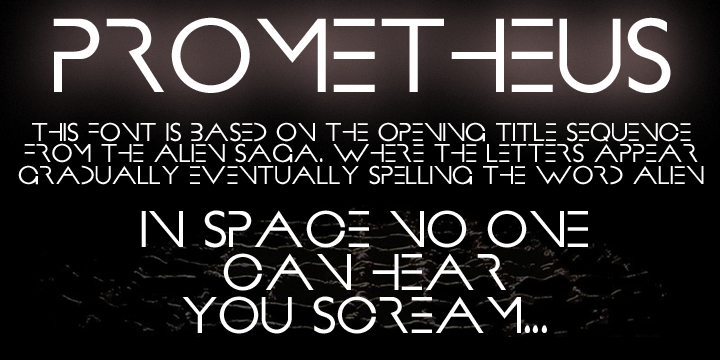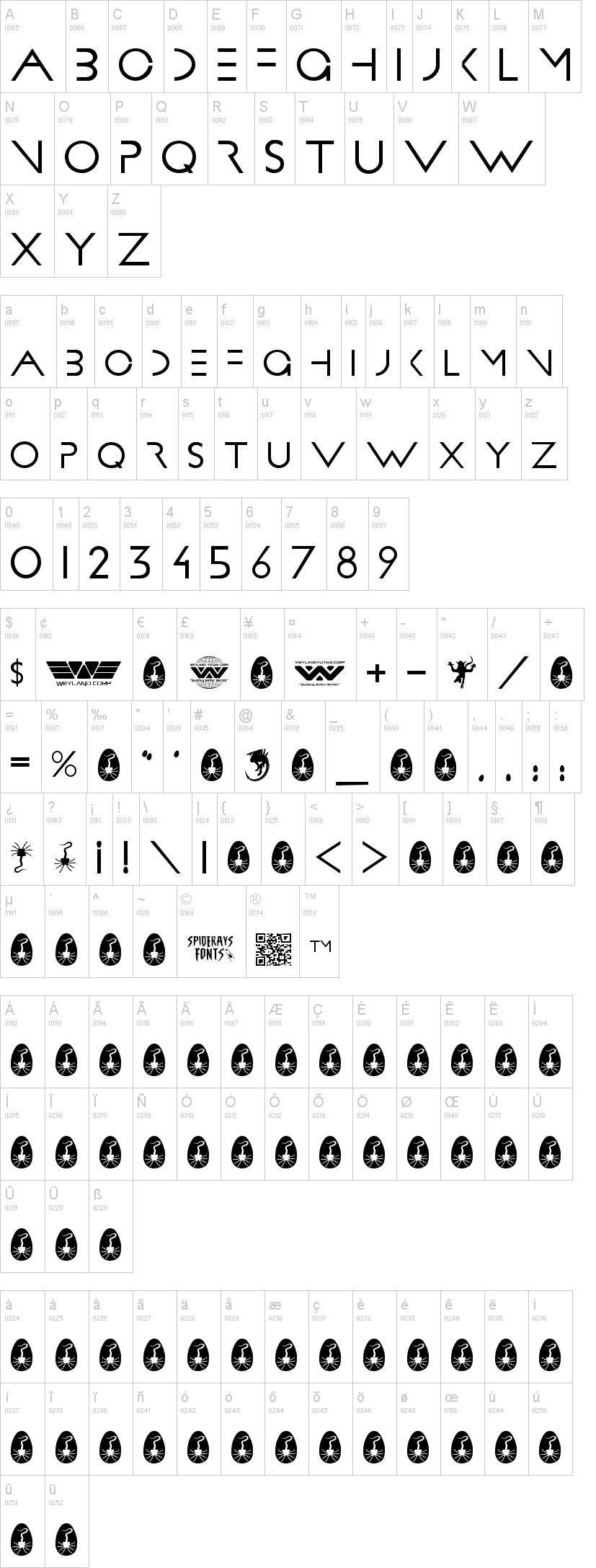
Note of the authorSince I was a teenager and the ALIEN egg hatched into a face hugger in the first movie I was hooked, I can't wait to see what happens in the prequel, I saw one of the posters today and was hooked on the font that was used I couldn't find it anywhere so here is the initial release of my latest fan-font.